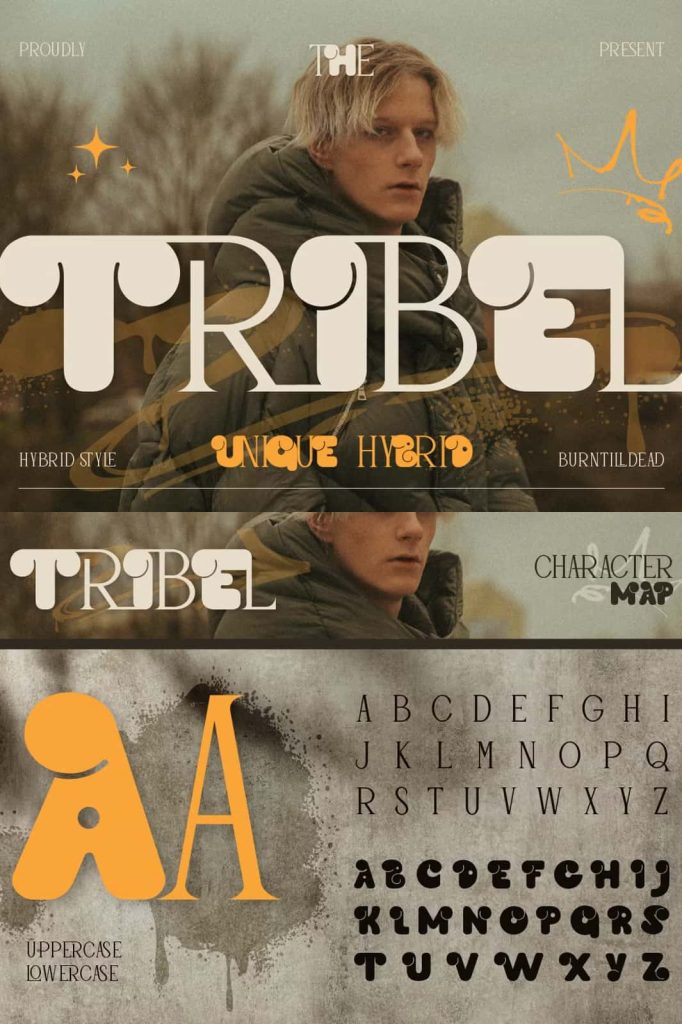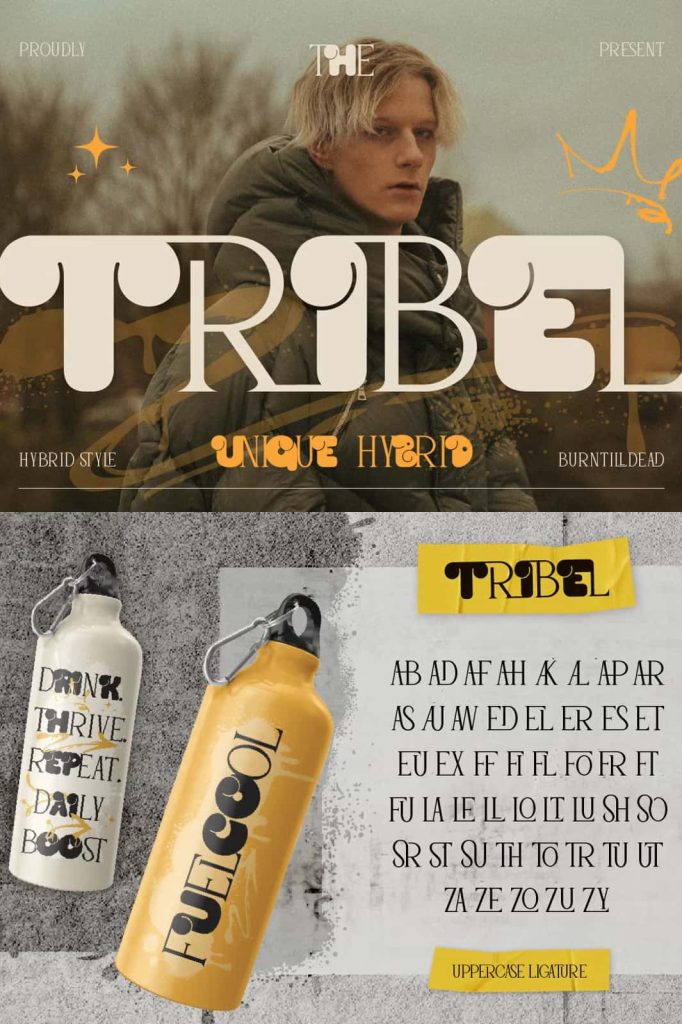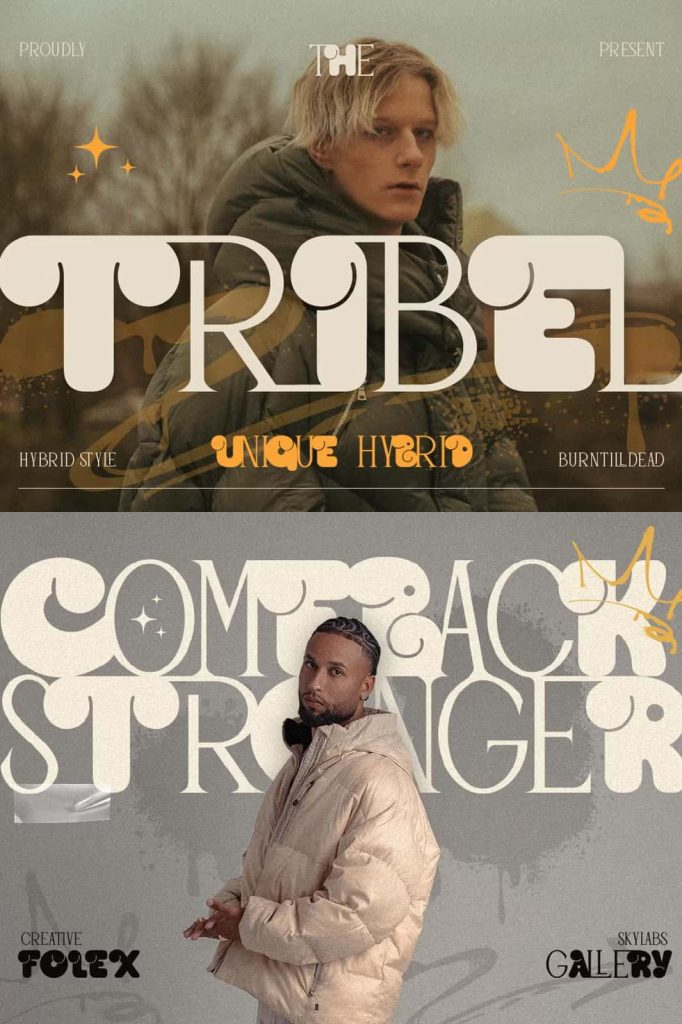
Proudly present, Tribel, hybrid typeface of bubble and serif font. This unique combination brings together the playful, rounded forms of bubble with the structured, classic lines of serif typography. The result is a typeface that exudes both fun and sophistication, perfect for projects that aim to capture a modern, urban aesthetic.